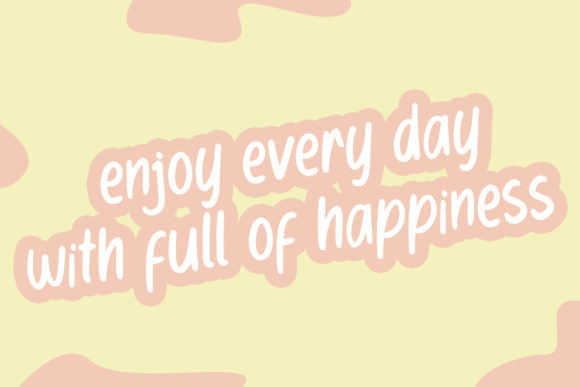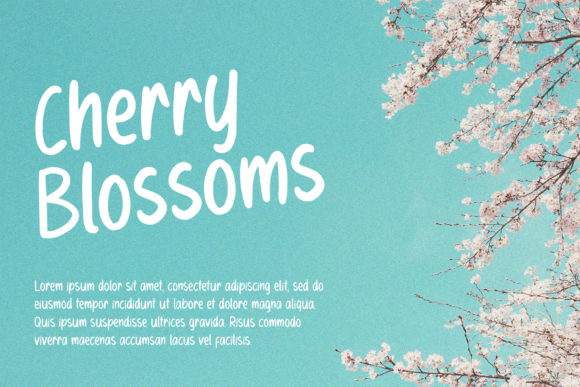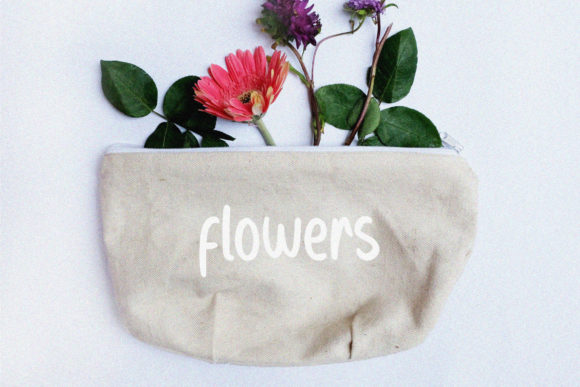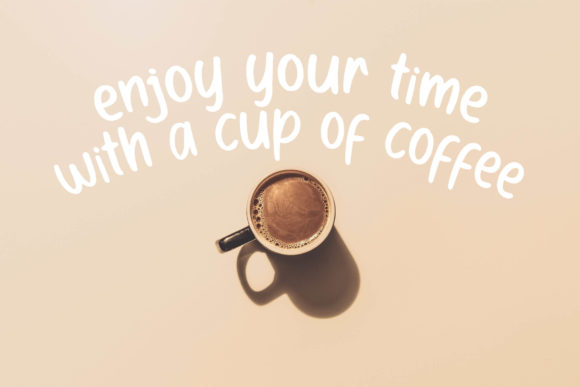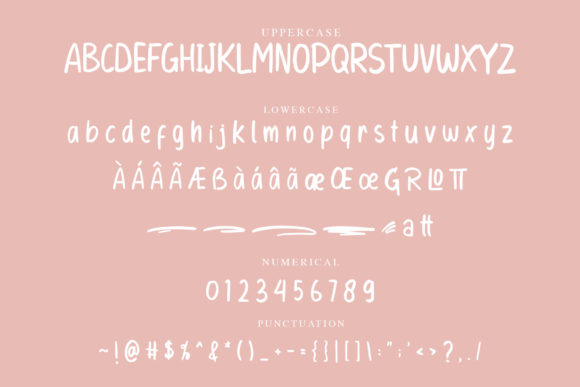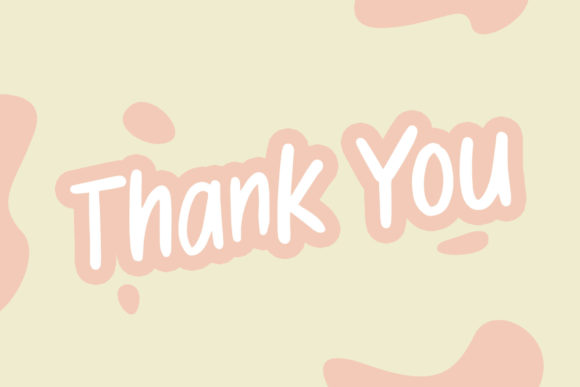
Introduction to Marlona Font
Marlona is a beautiful and paint brushed display font.
Key Features of Marlona Font
Why Choose Marlona Font?
Marlona Font offers exceptional quality and versatility, making it a valuable addition to your design toolkit. Whether you’re creating for personal projects or commercial use, Marlona Font delivers professional results.